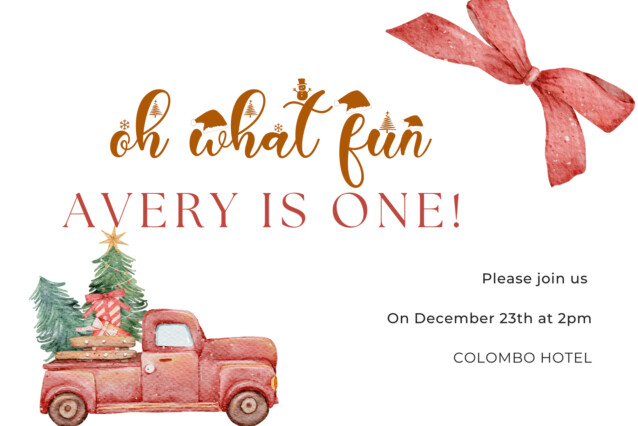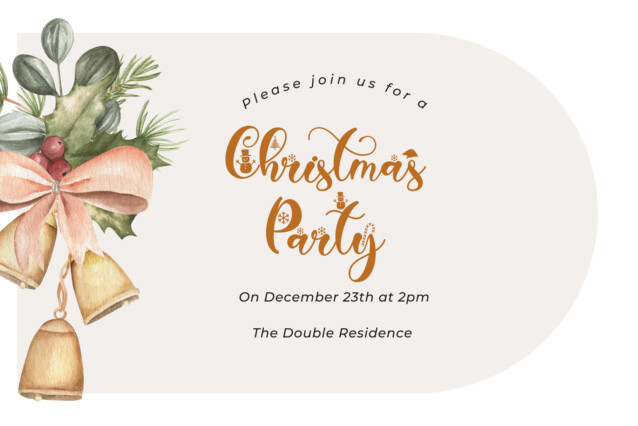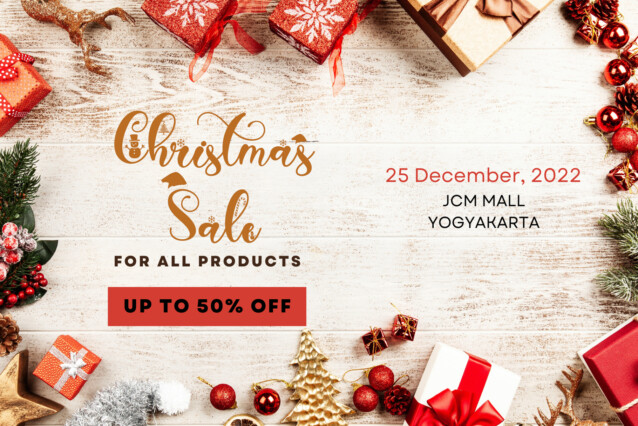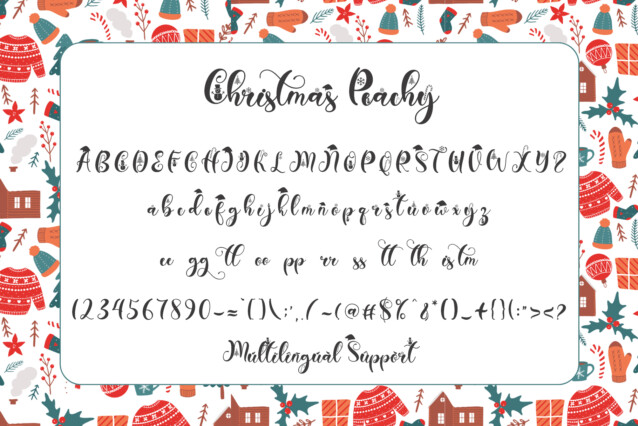
Christmas Peachy Font
Christmas Peachy Font is a very pretty handwritten font. It is suitable for Christmas, Valentine’s, back-to-school, winter, autumn, birthdays, weddings, engagements, and more. Add this font to your favorite creative ideas and see the results!